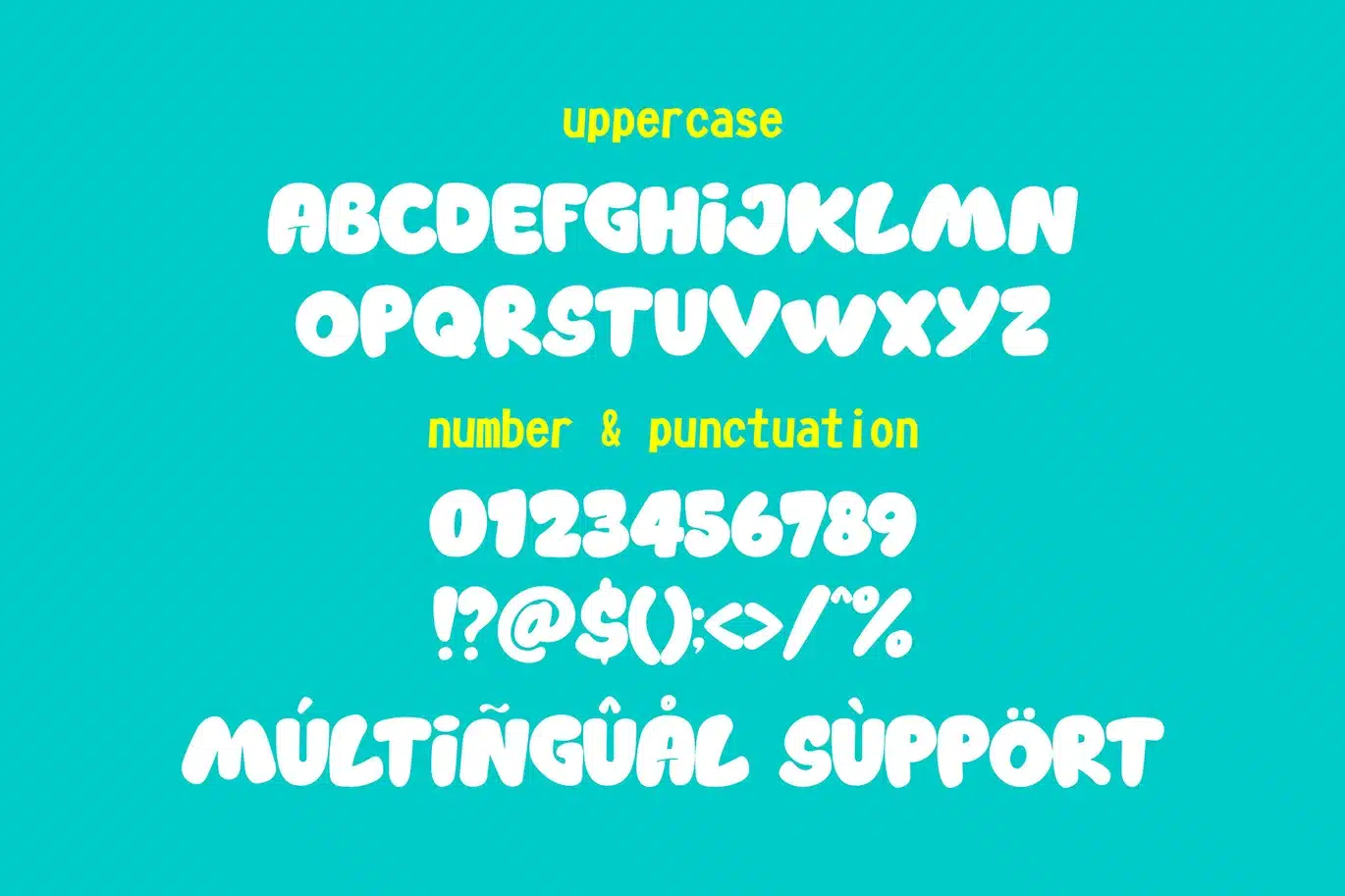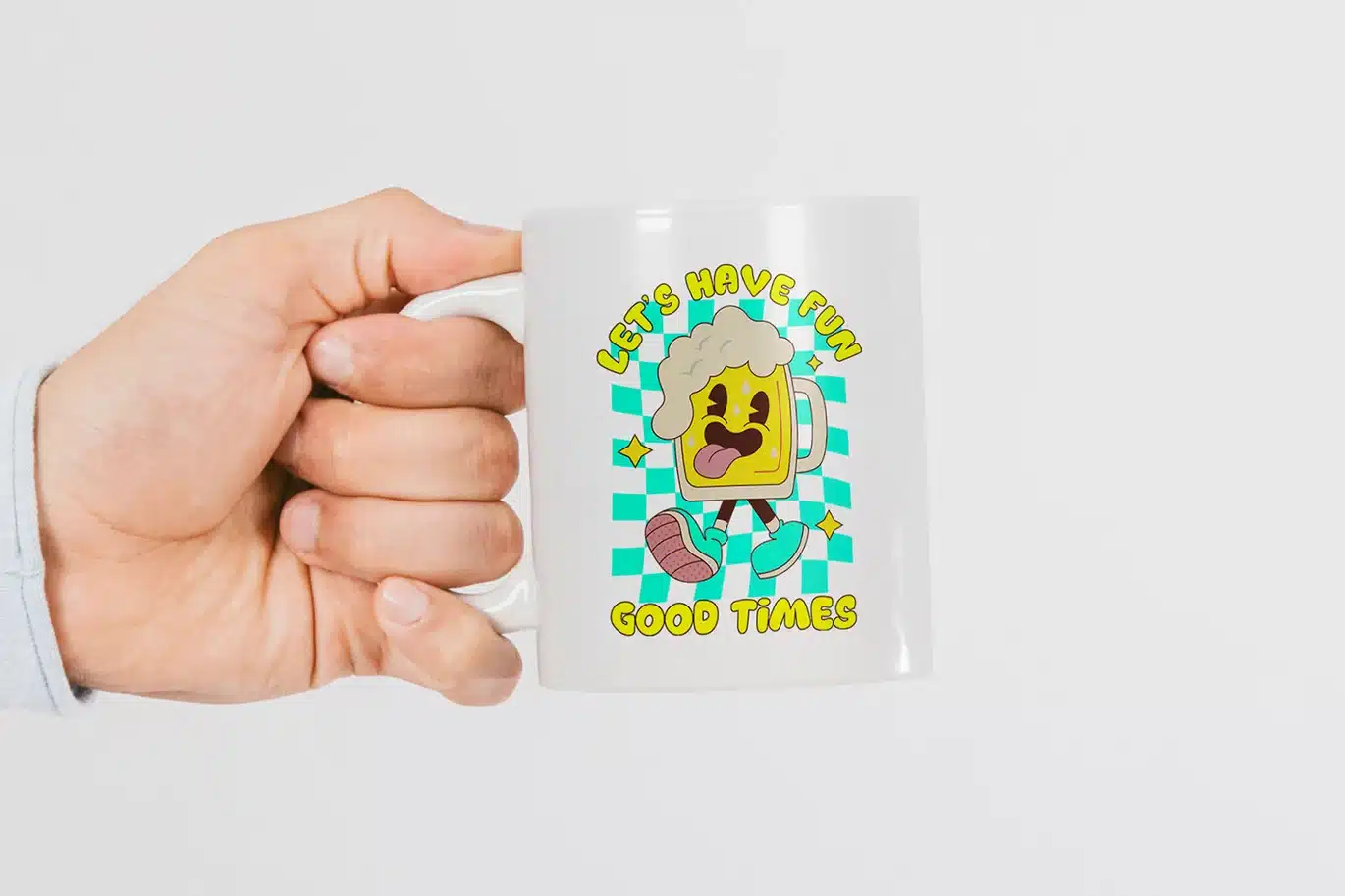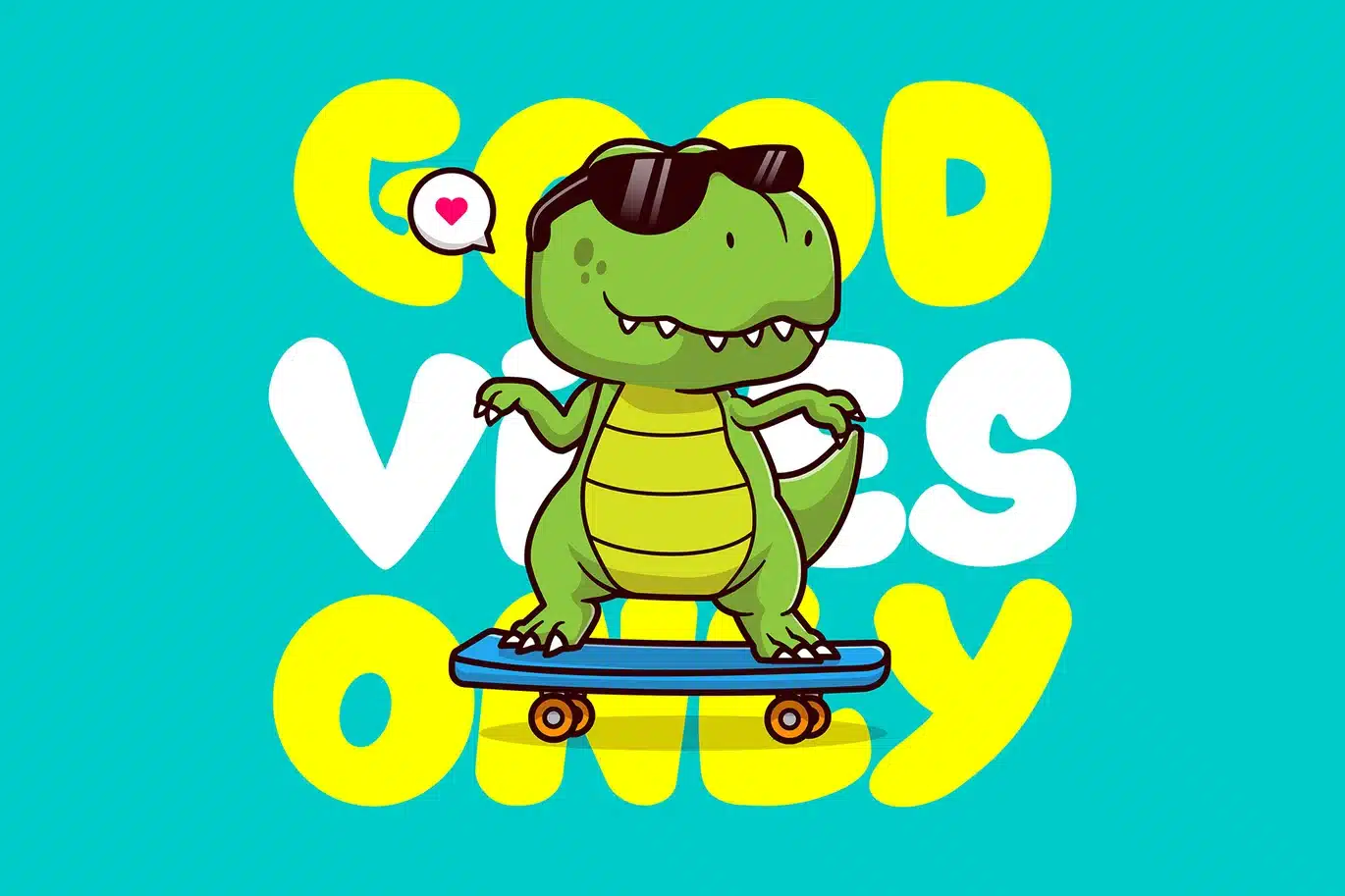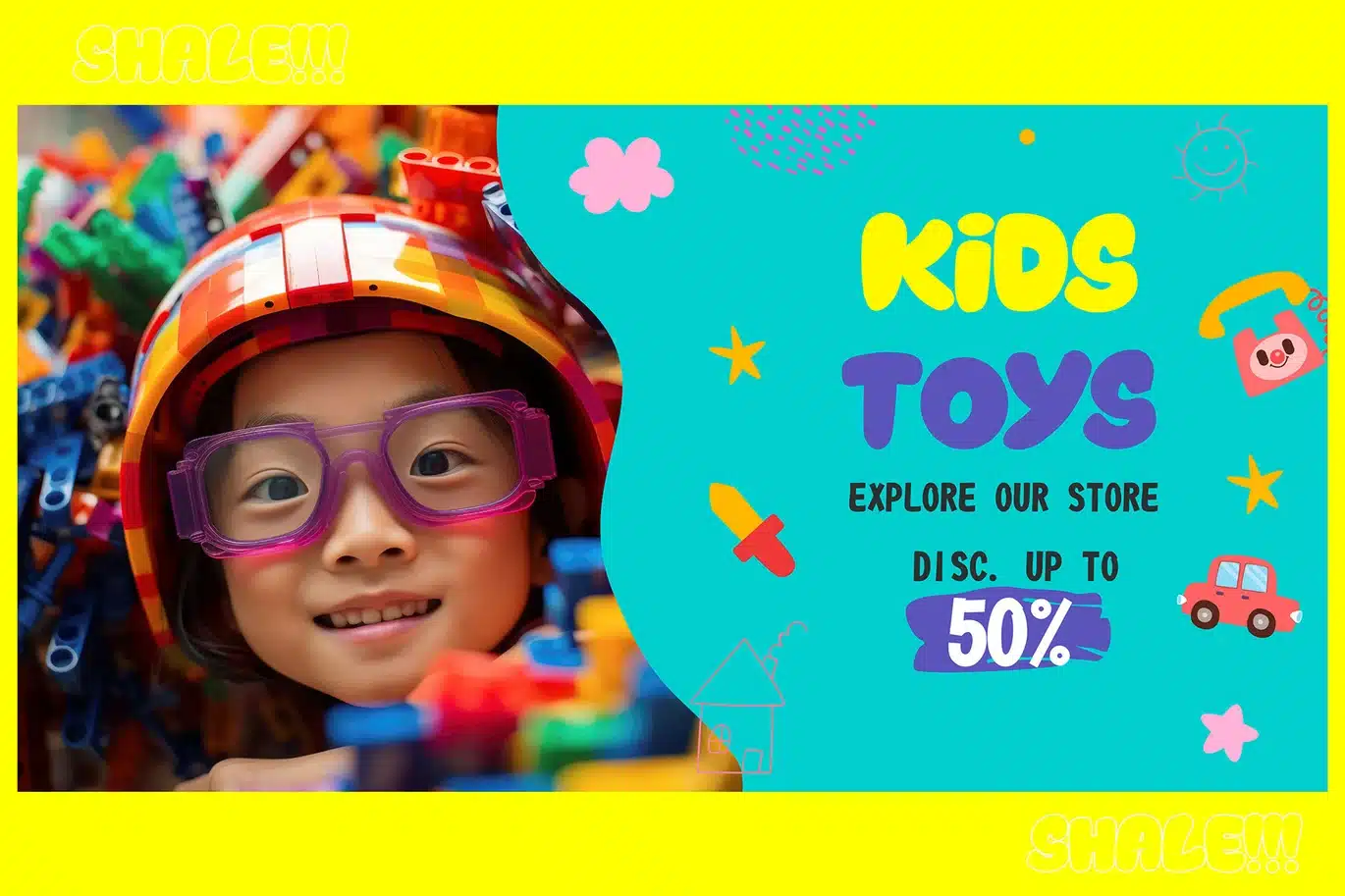
Chubby Popz – Fun Display Font
Chubby Popz – Fun Display Font is designed to bring a playful and expressive tone to your creative work. With its rounded shapes and lively character style, this typeface is ideal for projects that need a friendly and eye-catching appearance. The balance between bold structure and soft curves makes it suitable for both digital and print applications.
This font includes both uppercase and lowercase characters, giving you flexibility when creating layouts. Whether you are working on posters, children-themed content, product packaging, social media graphics, or educational materials, Chubby Popz helps communicate ideas in a clear and engaging way.
The letterforms are intentionally crafted to maintain readability while still offering a strong visual personality. Each character feels dynamic and approachable, making it easier to build compositions that stand out without overwhelming the message.
Key Features
- Uppercase & Lowercase Characters – more flexibility for creative layouts
- Support Multilingual – suitable for various language needs
- Fun Display Style – rounded and expressive letterforms
- Clear Readability – works well for headlines and short text
- Versatile Usage – posters, packaging, educational content, social media, and more
Why Designers Love It
Designers choose Chubby Popz because it simplifies the process of creating playful and engaging typography. The combination of uppercase and lowercase characters allows for more natural text flow, while the consistent stroke weight keeps compositions balanced.
Its friendly structure makes it suitable for a wide range of creative needs, from promotional visuals to interactive content. The multilingual support helps designers work across different audiences without needing additional font replacements.
Another advantage is its adaptability. The font performs well as a headline typeface, but it can also be used in short phrases, labels, and supporting text elements. This flexibility allows designers to maintain visual consistency across multiple design assets.